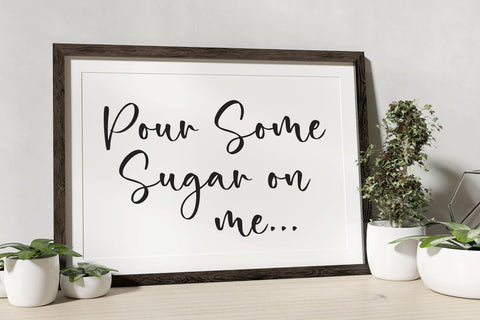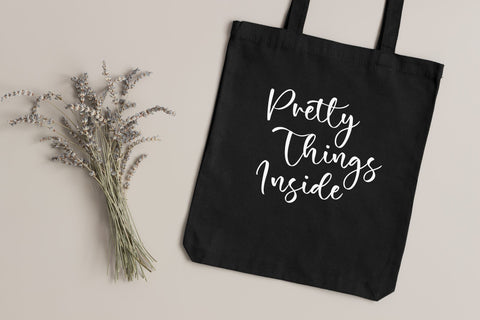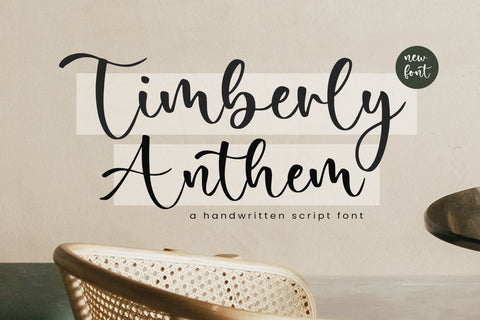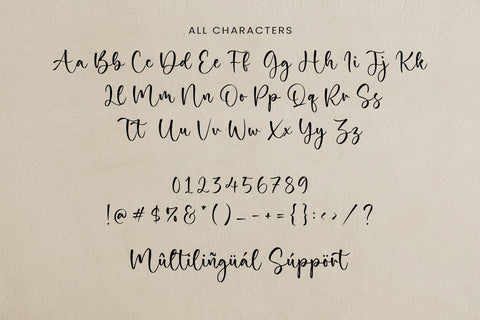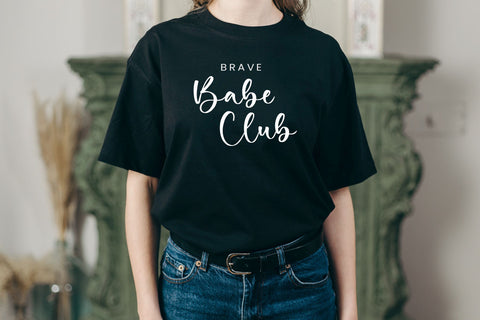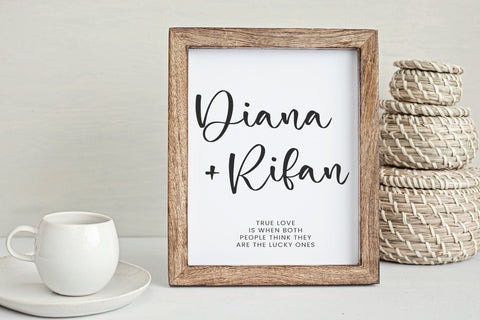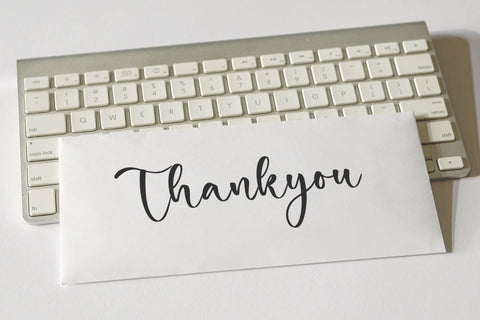
Timberly Anthem - Handwritten script font
Proudly Present, Timberly Anthem
Timberly Anthem is a Handwritten script font, which was created with great care and specially created for you .
Timberly Anthem is best for:
- logos, branding, & Signatures.
- Flyers, Album cover, Magazine, & Advertisements.
- Website design , design blogs, & fashion.
- Quote graphics for social media.
- and also it works great for other projects.